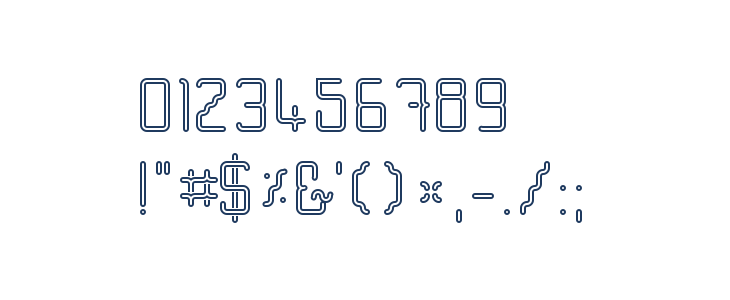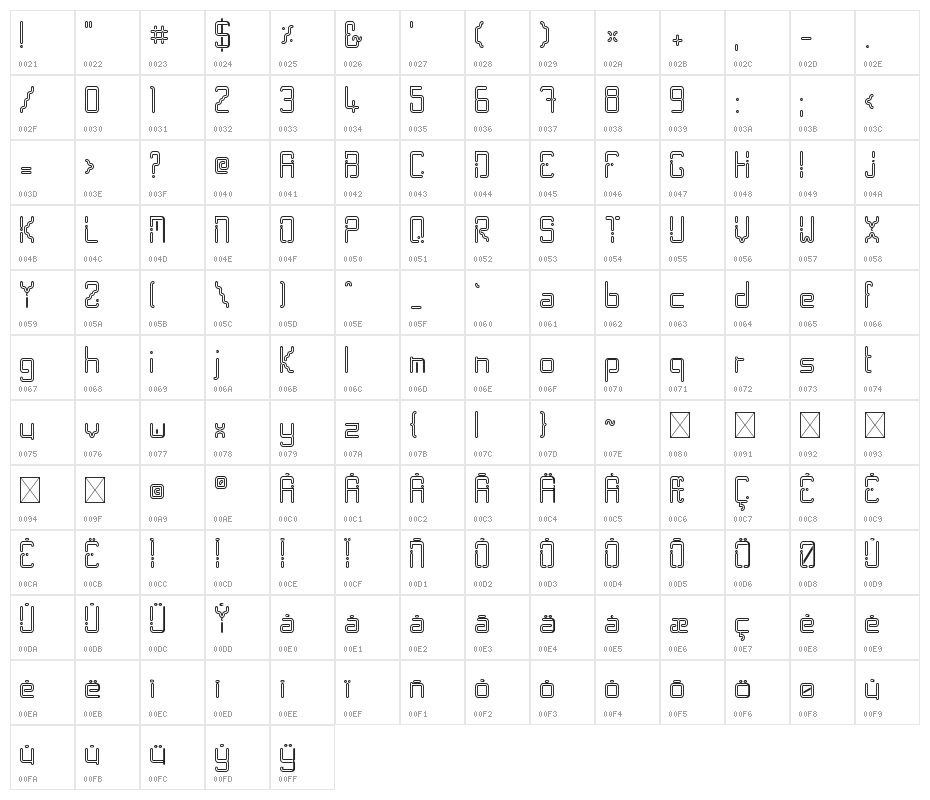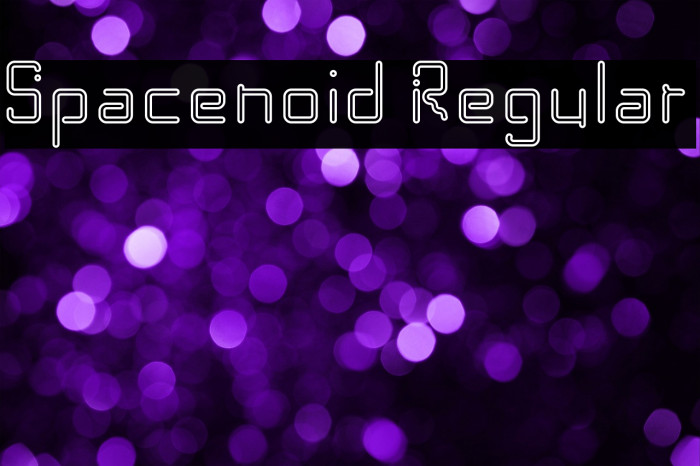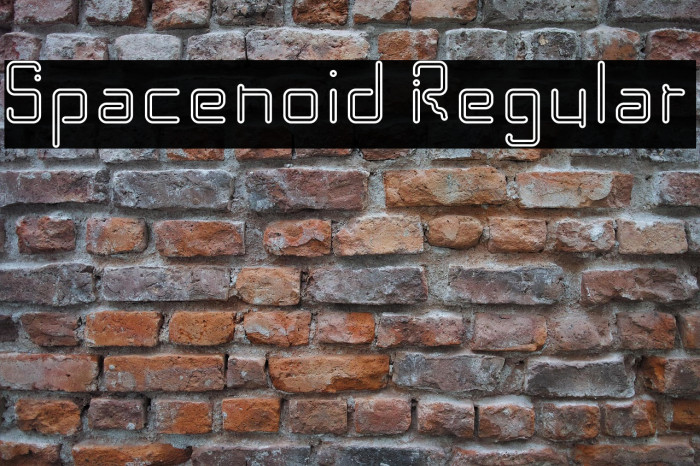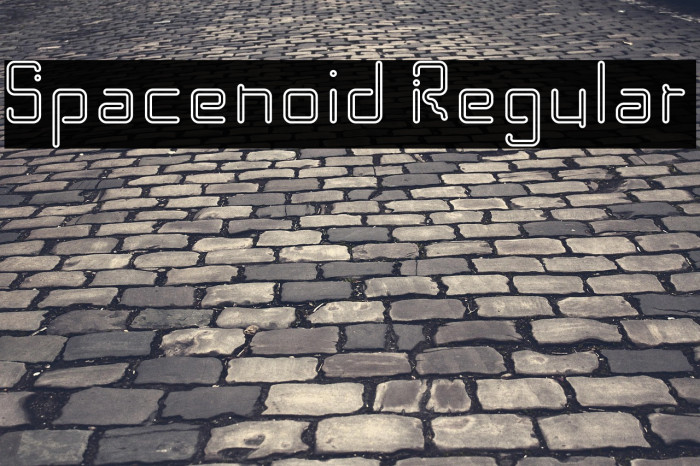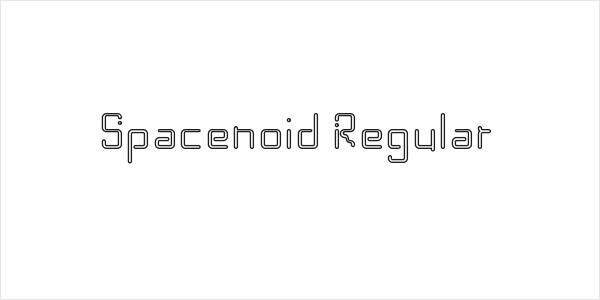
Spacenoid Regular Font
Spacenoid Regular Description
This font features a futuristic and geometric design, characterized by its hollow, outlined letterforms. Each character is constructed with a consistent line weight, giving it a uniform appearance. The font includes unique, rounded corners and small, circular cutouts within the strokes, adding a distinct, modern touch. The uppercase and lowercase letters maintain a similar style, ensuring visual coherence. Numbers and special characters are designed to match the overall aesthetic, making it suitable for digital and sci-fi themed projects.
| Proposed Projects | Ideal for sci-fi themed posters, video game interfaces, tech branding, and digital art projects. |